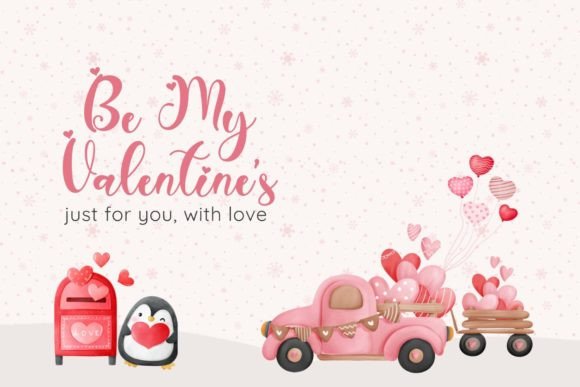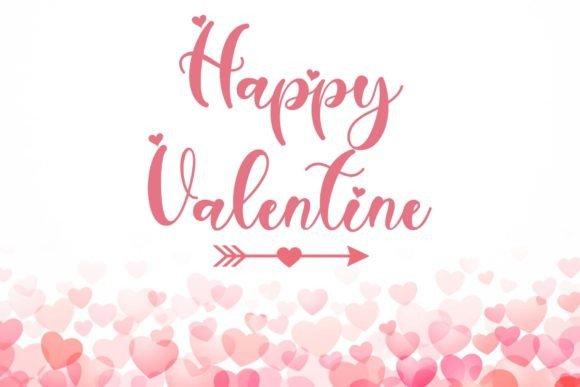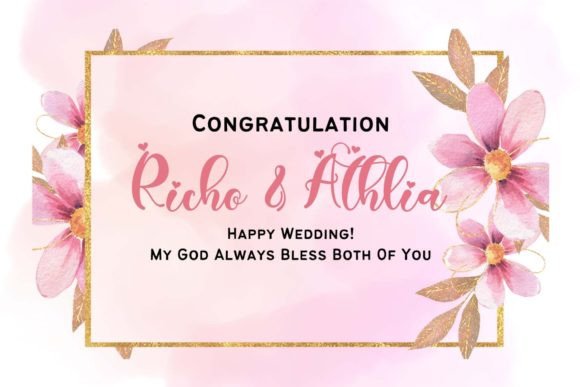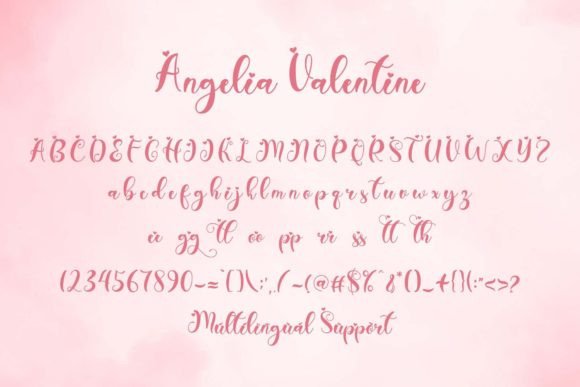
Introducing Angelia Valentine Font: The Perfect Handwritten Font for Your Designs
Are you looking for a beautiful and elegant handwritten font to make your designs stand out? Look no further than Angelia Valentine Font! This stunning font is perfect for creating romantic and eye-catching designs for Valentine’s Day, weddings, engagements, and more.
What Makes Angelia Valentine Font Special?
Angelia Valentine Font is a carefully crafted handwritten font that exudes elegance and sophistication. With its beautiful lettering and flowing curves, this font is sure to capture the hearts of designers and crafters alike. Here are some of the features that make Angelia Valentine Font truly special:
- Uppercase and Lowercase Letters: The font includes both uppercase and lowercase letters, allowing you to create a wide range of designs and text styles.
- Numerals and Punctuation: The font also includes numerals and punctuation marks, making it a versatile and practical choice for designers.
- Multilingual Support: Angelia Valentine Font supports multiple languages, making it a great choice for designers who work with international clients or want to create designs for a global audience.
Perfect for Valentine’s Day and Wedding Designs
Angelia Valentine Font is specifically designed with Valentine’s Day and wedding designs in mind. The font’s romantic and elegant feel makes it perfect for creating beautiful and memorable designs for:
- Valentine’s Day Cards and Gifts: Create romantic and personalized Valentine’s Day cards, gift tags, and wrapping paper with Angelia Valentine Font.
- Wedding Invitations: Make your wedding invitations truly special with this beautiful handwritten font.
- Engagement Announcements: Announce your engagement in style with Angelia Valentine Font.
Beyond Valentine’s Day and Weddings: Other Design Ideas
While Angelia Valentine Font is perfect for Valentine’s Day and wedding designs, its versatility means it can be used for a wide range of other design projects, including:
- Logos and Branding: Create a beautiful and memorable logo for your business or brand with Angelia Valentine Font.
- Banners and Posters: Use the font to create eye-catching banners and posters for events, promotions, or advertising.
- Gifts and Packaging: Add a personal touch to your gifts and packaging with Angelia Valentine Font.
- Winter and Spring Designs: The font’s elegant feel makes it perfect for creating designs for winter and spring, such as holiday cards, gift tags, and more.
Why Choose Angelia Valentine Font?
With so many fonts available, why choose Angelia Valentine Font? Here are just a few reasons:
- Unique and Elegant: Angelia Valentine Font is a truly unique and elegant handwritten font that will make your designs stand out.
- Versatile: The font’s versatility means it can be used for a wide range of design projects, from Valentine’s Day and wedding designs to logos, branding, and more.
Angelia Valentine Font is a beautiful and elegant handwritten font that’s perfect for designers and crafters looking to create romantic and eye-catching designs. With its uppercase and lowercase letters, numerals, punctuation, and multilingual support, this font is versatile and practical. Whether you’re creating designs for Valentine’s Day, weddings, engagements, or other projects, Angelia Valentine Font is a great choice. So why wait? Download Angelia Valentine Font today and start creating your own beautiful designs!